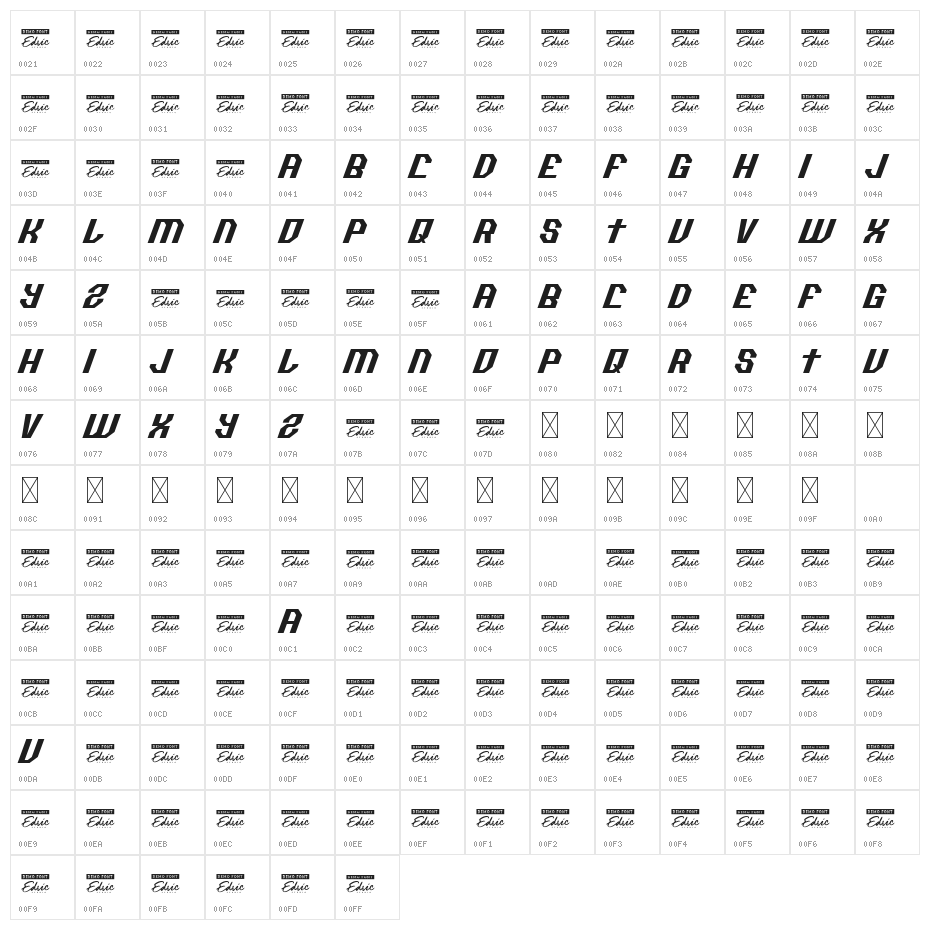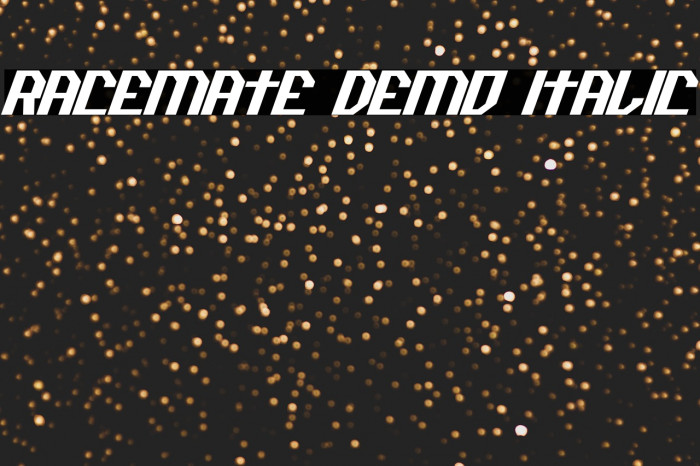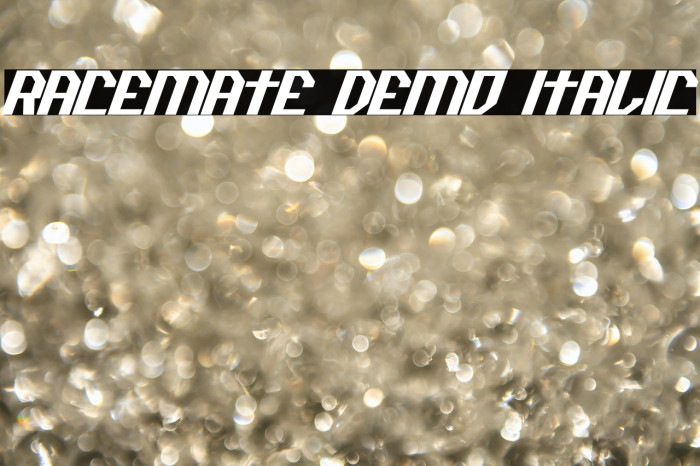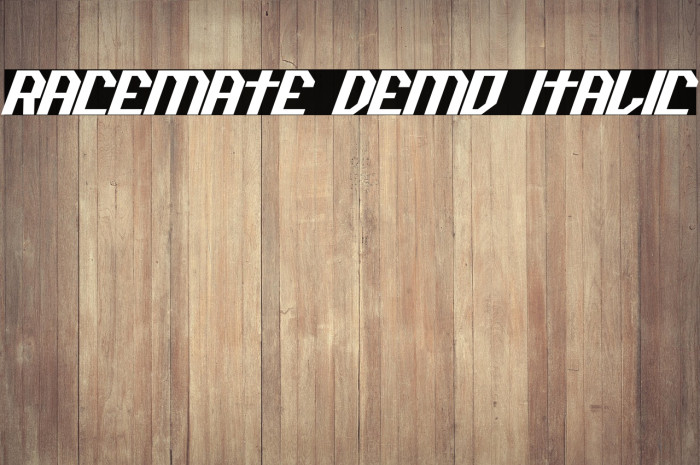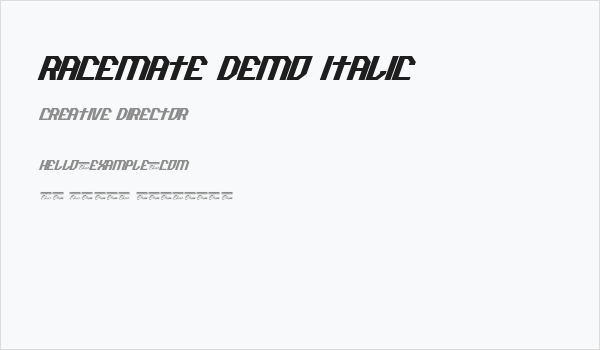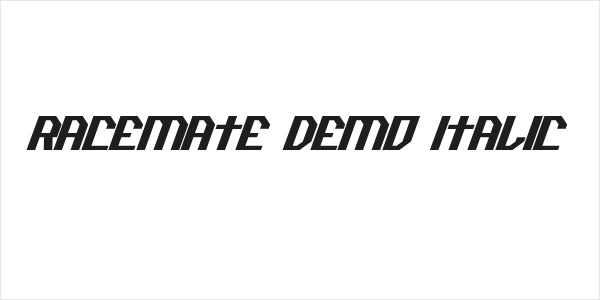
Racemate Demo Italic Font
Racemate Demo Italic Description
This font features a bold, angular design with a distinct italic slant, giving it a dynamic and modern appearance. The characters are crafted with sharp edges and geometric forms, creating a sense of movement and energy. The uppercase letters are particularly striking, with a futuristic style that stands out. The lowercase letters maintain the same angular aesthetic, ensuring consistency throughout the typeface. The numbers and special characters are designed to match the overall style, making this font versatile for various applications. Its unique design makes it suitable for projects that require a bold and contemporary look.
| Proposed Projects | Ideal for branding, posters, sports team logos, and any project needing a bold, modern touch. |